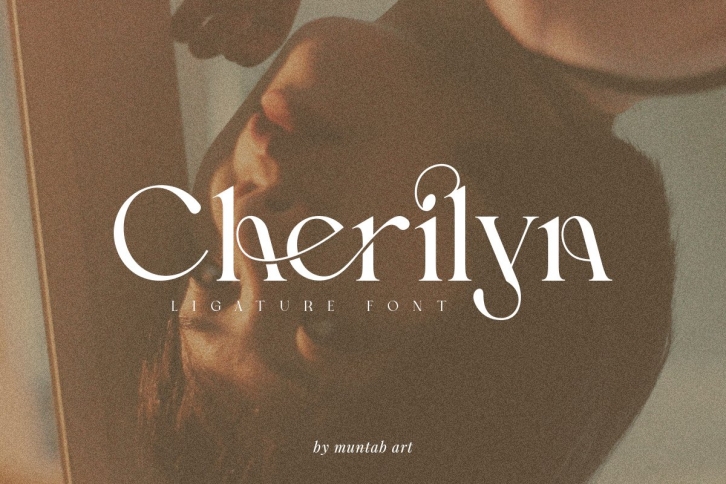
Cherilyn is a trendy and unique font with an authentic style. It was designed by Muntab Art and it's a great choice for creative people who need such a font. It was released on June 2, 2022 and the file size is 13.56 MB. Cherilyn will add an organic vibe to any design idea!